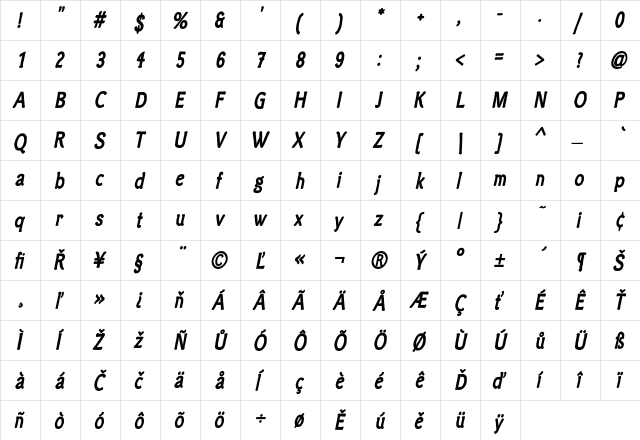
Clichee BoldOblique
Design Context for Clichee Typeface
Clichee is a composed and adaptable typeface that performs quietly and consistently across a wide range of design contexts. The dynamic lean of this cut emphasises speed and emphasis in any layout. The heavy weight commands attention and anchors typographic hierarchies.
Pro Tip: Use Clichee for emphasis, pull quotes, and subheadings where its slanted energy can add rhythm to the layout.